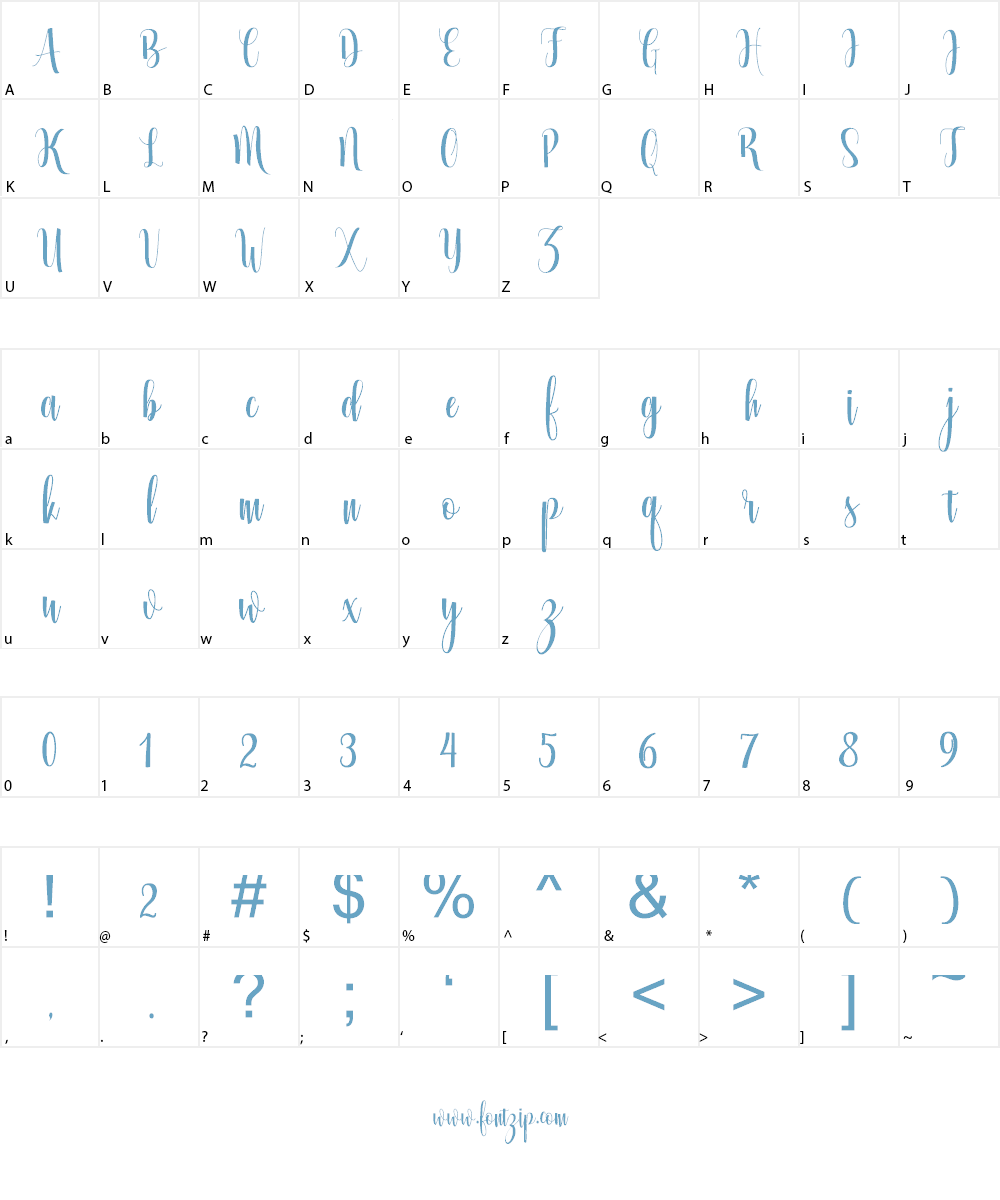
Glorious Modern Calligraphy. This font was designed by handwriting, and it has a modern and unique forms of calligraphy, the writing style is very natural.
The Features of this fonts is;
Standart ligatures
Stylistic Alternates
Contextual Alternates
Stylistic sets
Swash
Initial Form
Medial Form
Terminal Form
Can be used for various purposes.such as headings, logos, wedding invitation, t-shirt, letterhead, signage, lable, news, posters, badges etc. To enable the OpenType Stylistic alternates, you need a program that supports OpenType features such as Adobe Illustrator CS, Adobe Indesign & CorelDraw X6-X7.